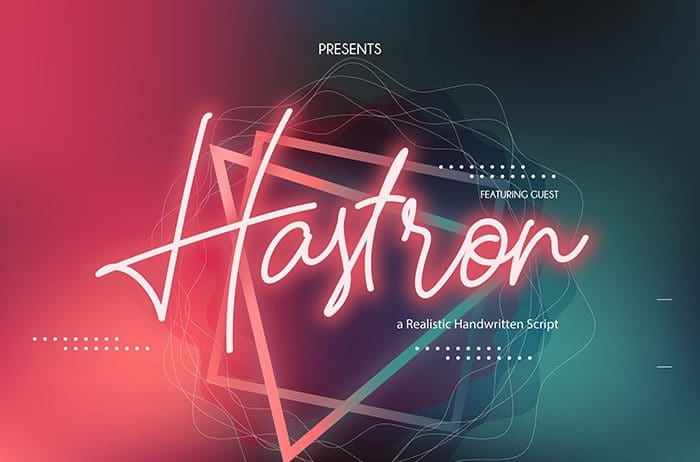
Hastron Script Font
Hastron is a realistic handwritten script font that is perfect for a variety of design projects. Get inspired by its charming retro feel! Thanks to Vunira Studio for sharing this font! Take a look at this portfolio for more of his stunning fonts.